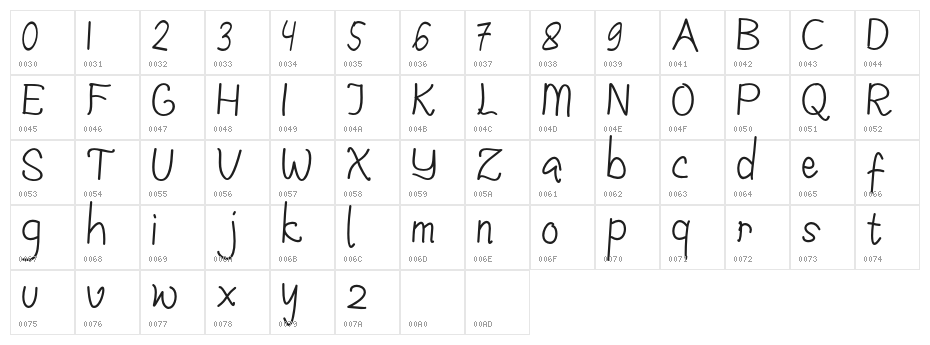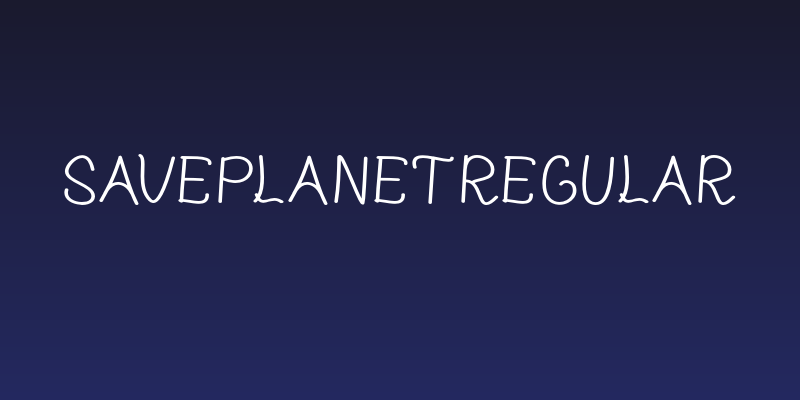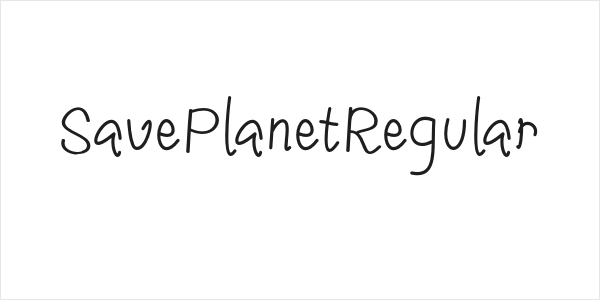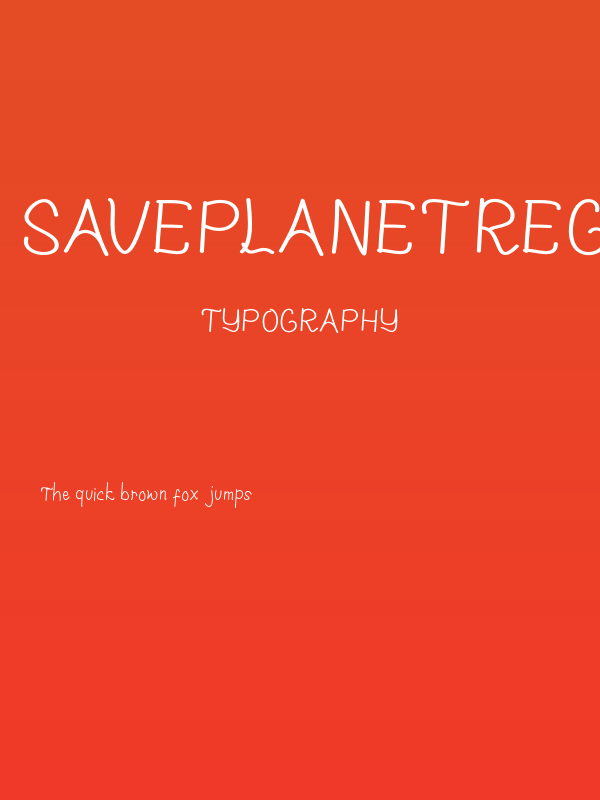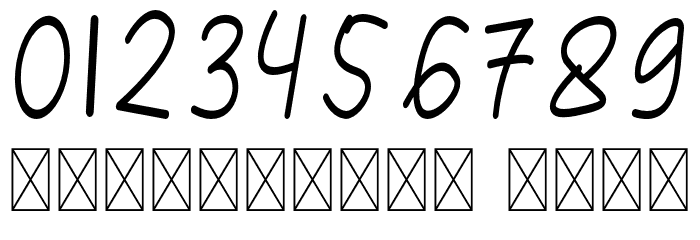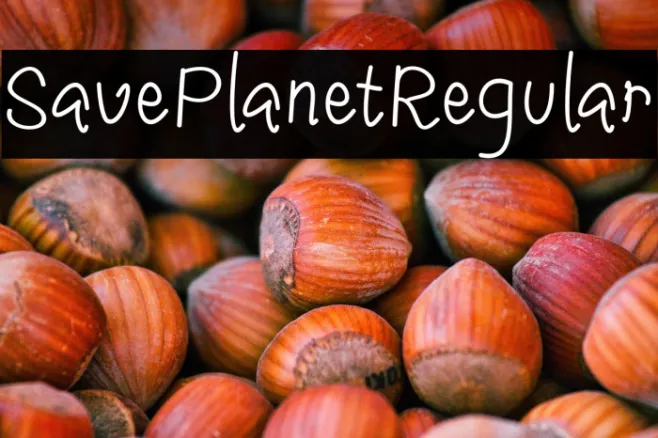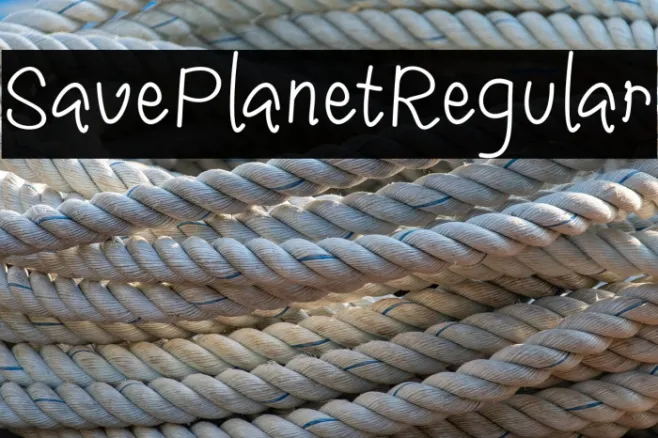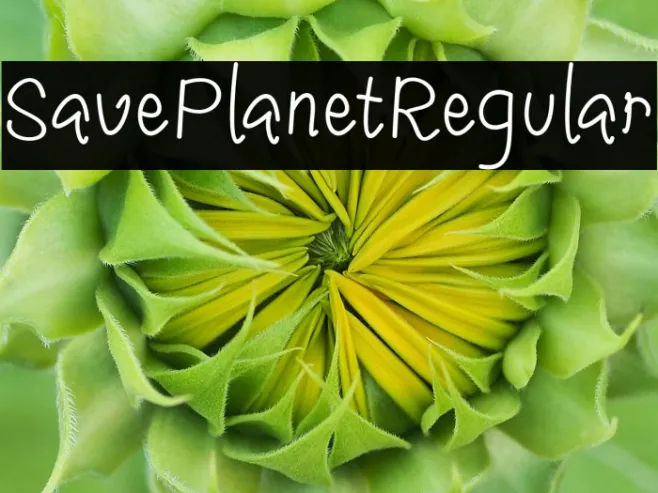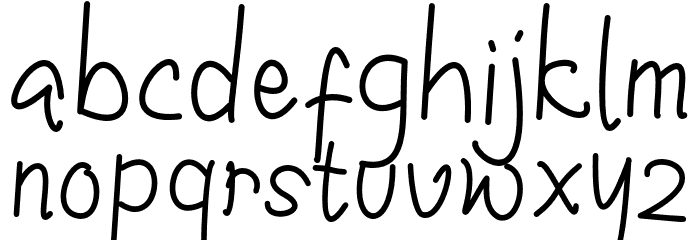
SavePlanetRegular Font
SavePlanetRegular Description
This font features a playful and informal handwritten style, characterized by its slightly irregular and organic letterforms. The strokes are smooth and rounded, giving it a friendly and approachable appearance. The uppercase letters maintain a consistent height, while the lowercase letters exhibit a charming variability in size and alignment, adding to its casual aesthetic. The numerals are clear and legible, matching the overall style of the alphabet. The special characters are designed to complement the letterforms, ensuring a cohesive look across all glyphs. This font is well-suited for projects that aim to convey warmth and personality.
| Proposed Projects | Ideal for greeting cards, children's books, casual branding, and social media graphics. |